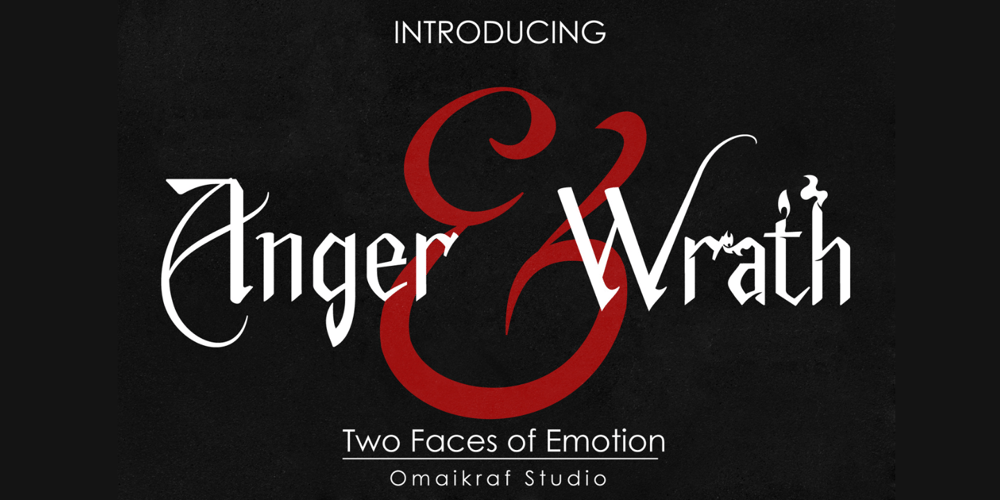
Anger & Wrath Font Family was designed by Ardyan Permana and published by Omaikraf Studio. Anger & Wrath contains 2 styles and family package options. Introducing “Anger Style”: Unleash the Power of EmotionAre you ready to harness the raw energy of emotions and bring them to life in your designs? Look no further than “Anger Style,” an electrifying and dynamic font that will leave a lasting impact on your audience. Designed by our team of expert font designers, “Anger Style” is a captivating blend of intensity, power, and expressiveness.Possible Design Uses: “Anger Style” is a font that excels in making a bold statement. Its commanding presence and fiery nature make it perfect for various design applications, including: Headlines and Titles: Grab your audience’s attention and make a lasting impression with powerful headlines that demand to be noticed. Logos and Branding: Infuse your brand identity with passion and intensity, creating a memorable and distinct visual presence. Posters and Flyers: Advertise events, concerts, or special promotions with eye-catching designs that embody rebelliousness and energy. Book Covers: Create striking covers that captivate readers and convey the emotional depth of your story or message. Apparel and Merchandise: Add an edgy touch to your clothing designs, making a statement that resonates with your target audience. Unique Qualities: What sets “Anger Style” apart from other fonts is its ability to evoke a wide range of emotions, not just anger. It transcends its name, allowing you to express passion, determination, and rebellion through your designs. Its versatility lies in its bold strokes and sharp edges, which convey a sense of intensity and power. By choosing “Anger Style,” you gain access to a font that embodies the very essence of raw human emotion. Font Pairing: “Anger Style” pairs exceptionally well with other fonts that complement its intensity and create harmonious combinations. Consider combining it with: “Bold Sans Serifs”: The clean lines and strong presence of a bold sans serif font can enhance the impact of “Anger Style,” creating a balanced and eye-catching composition. “Elegant Script Fonts”: To add a touch of contrast and sophistication, pairing “Anger Style” with an elegant script font can create a visually engaging and dynamic design. Functional Aspects: “Anger Style” offers a range of functional aspects designed to enhance your creative possibilities: Styles: “Anger Style” is available in bold and regular styles, allowing you to emphasize different levels of intensity within your designs. Character Sets: The font includes an extensive character set, covering uppercase and lowercase letters, numbers, punctuation marks, and special characters. This ensures versatility and legibility across various design projects. Special Features: “Anger Style” includes stylistic alternates and ligatures, providing you with additional design options and allowing you to create a truly customized and unique look.